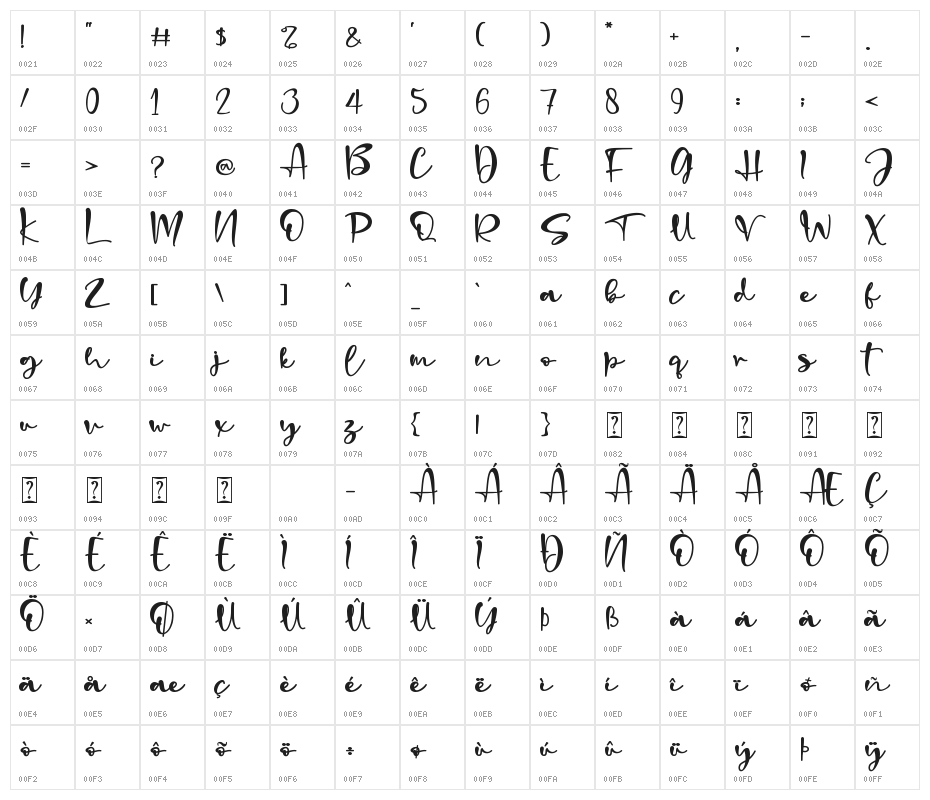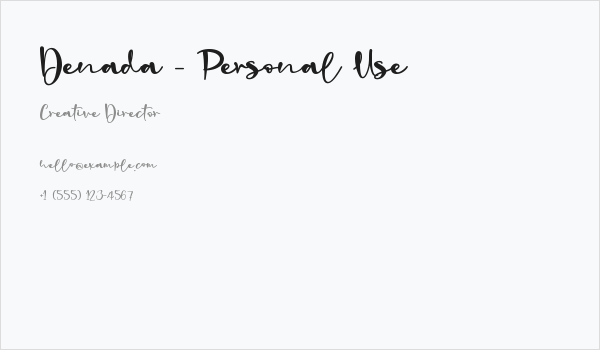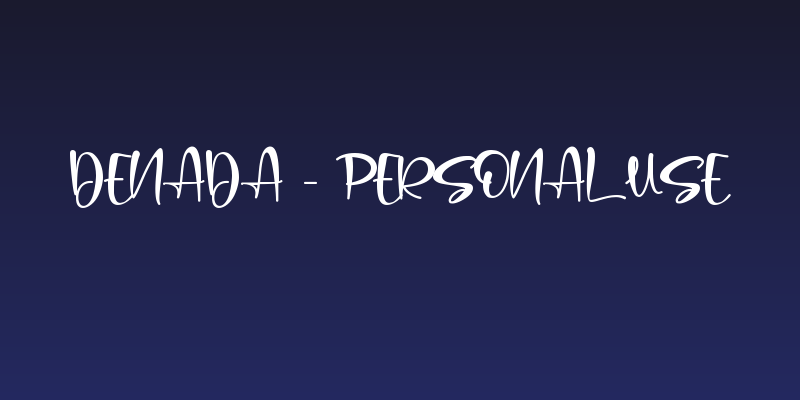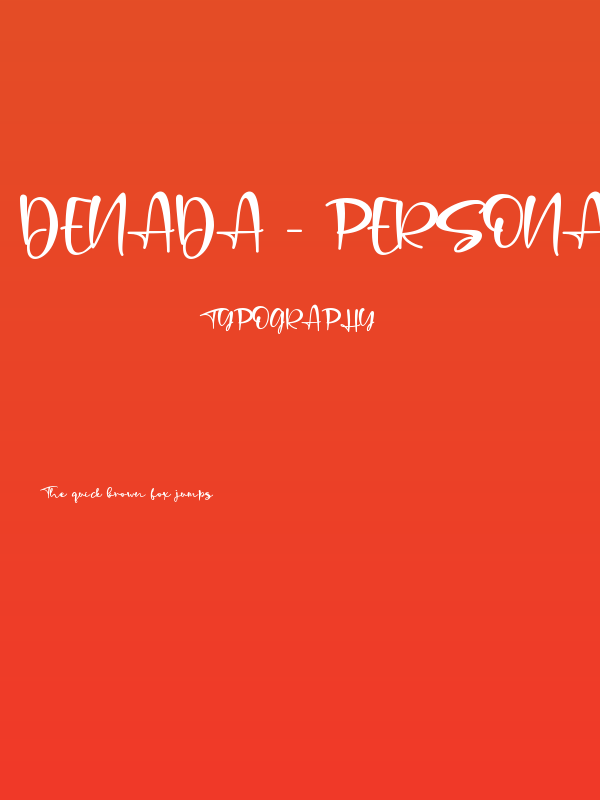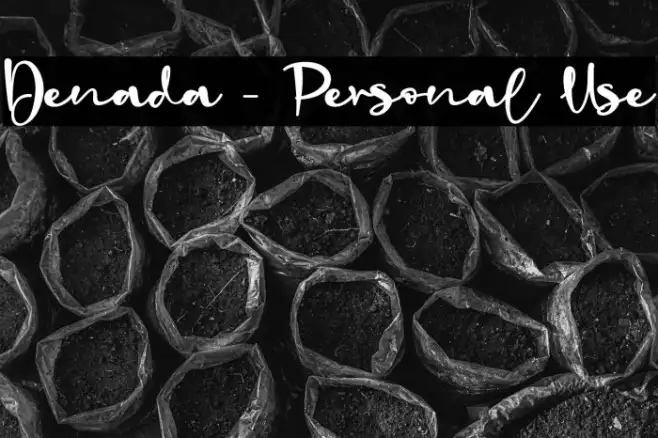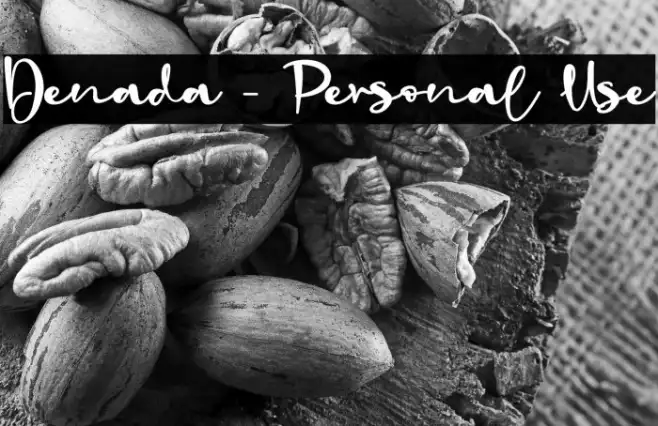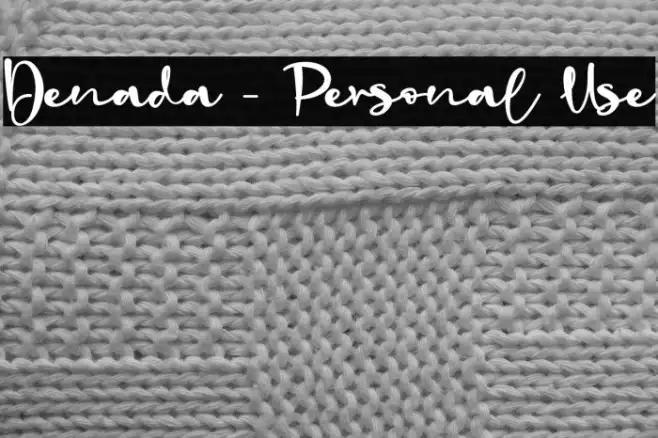
Denada - Personal Use Font
Denada - Personal Use Description
This font features a lively and expressive handwritten style, characterized by its fluid and dynamic strokes. The uppercase letters are bold and slightly slanted, giving a sense of movement and energy. The lowercase letters maintain a consistent flow, with playful loops and curves that add a personal touch. The numbers are clear and legible, matching the overall style with their rounded forms. Special characters are creatively integrated, maintaining the font's cohesive appearance. This font exudes a casual yet stylish vibe, perfect for projects that require a personal and approachable feel.
| Use Case | Logos, Headlines, Social Media |
| Proposed Projects | Ideal for greeting cards, invitations, personal branding, and social media graphics. |